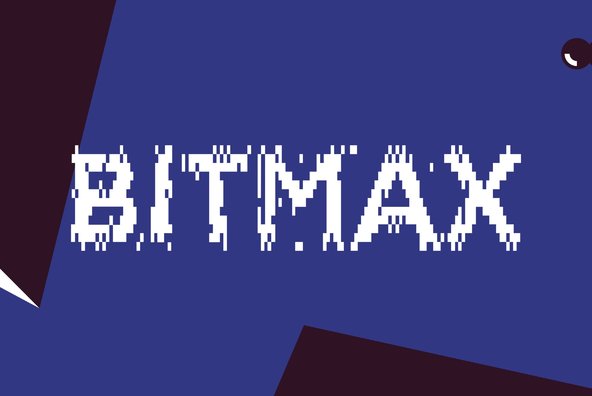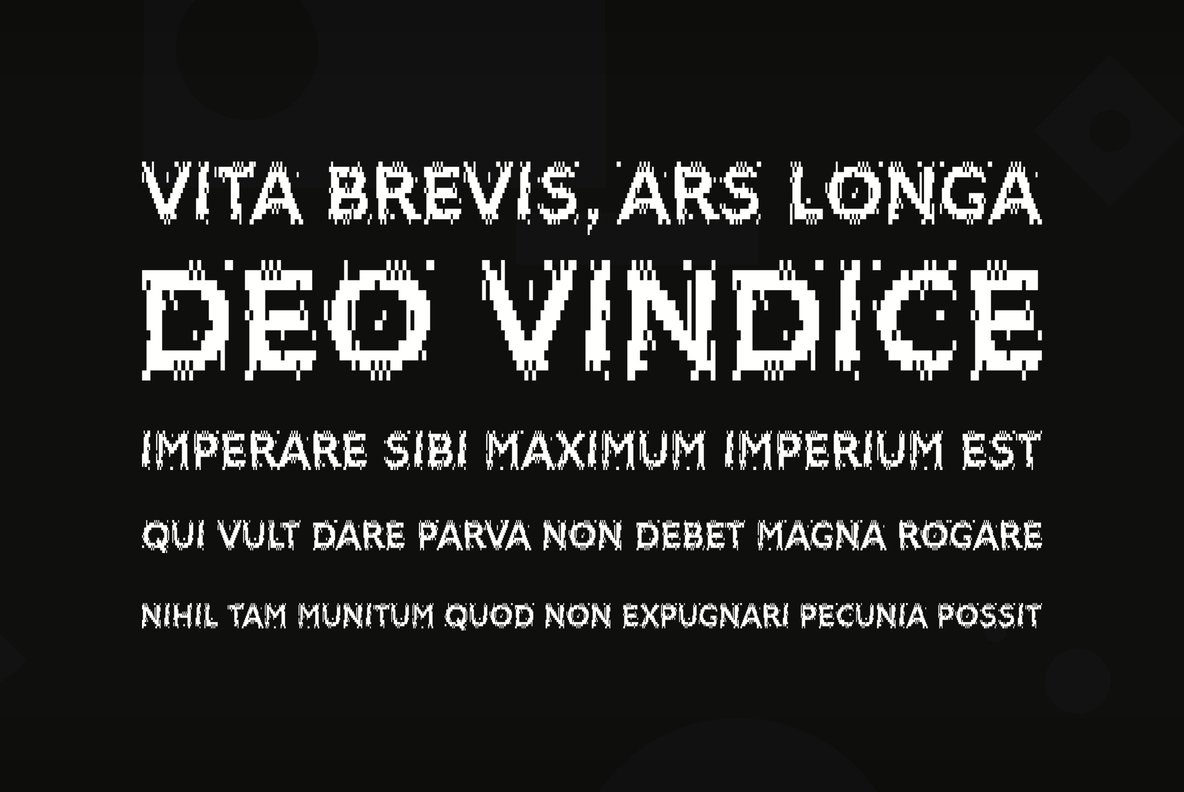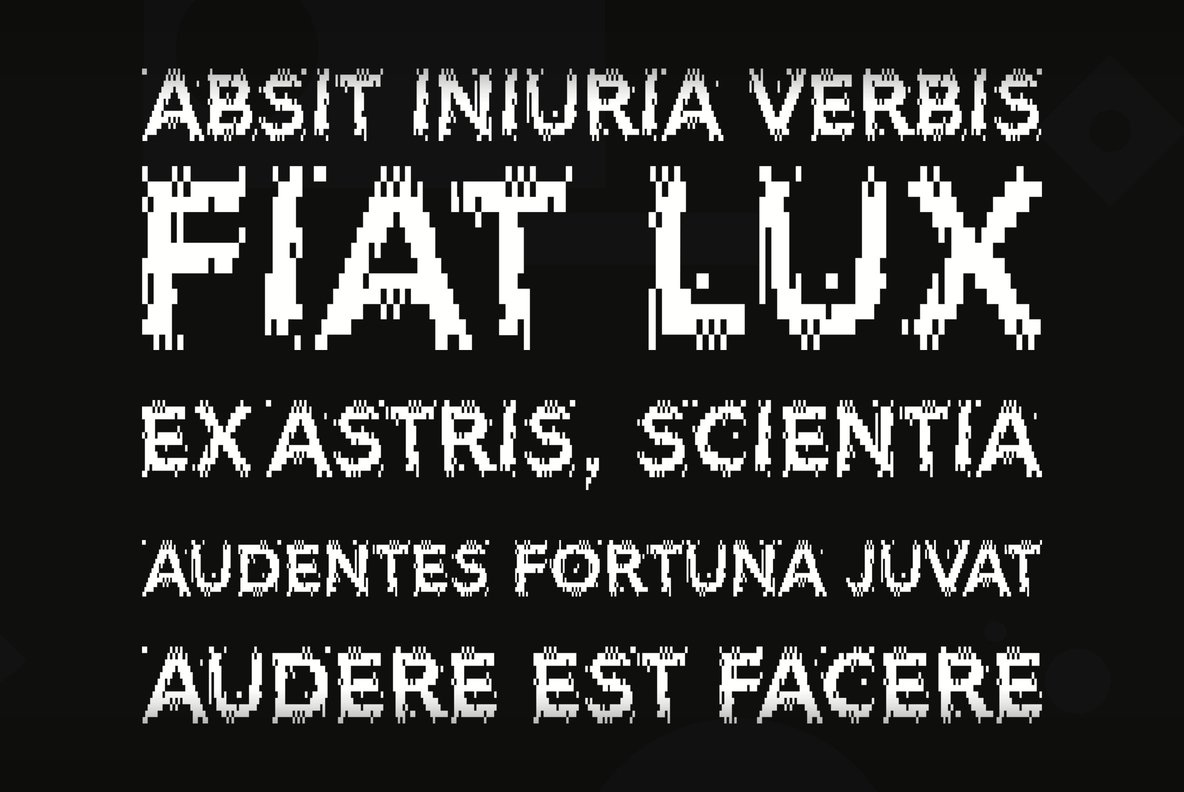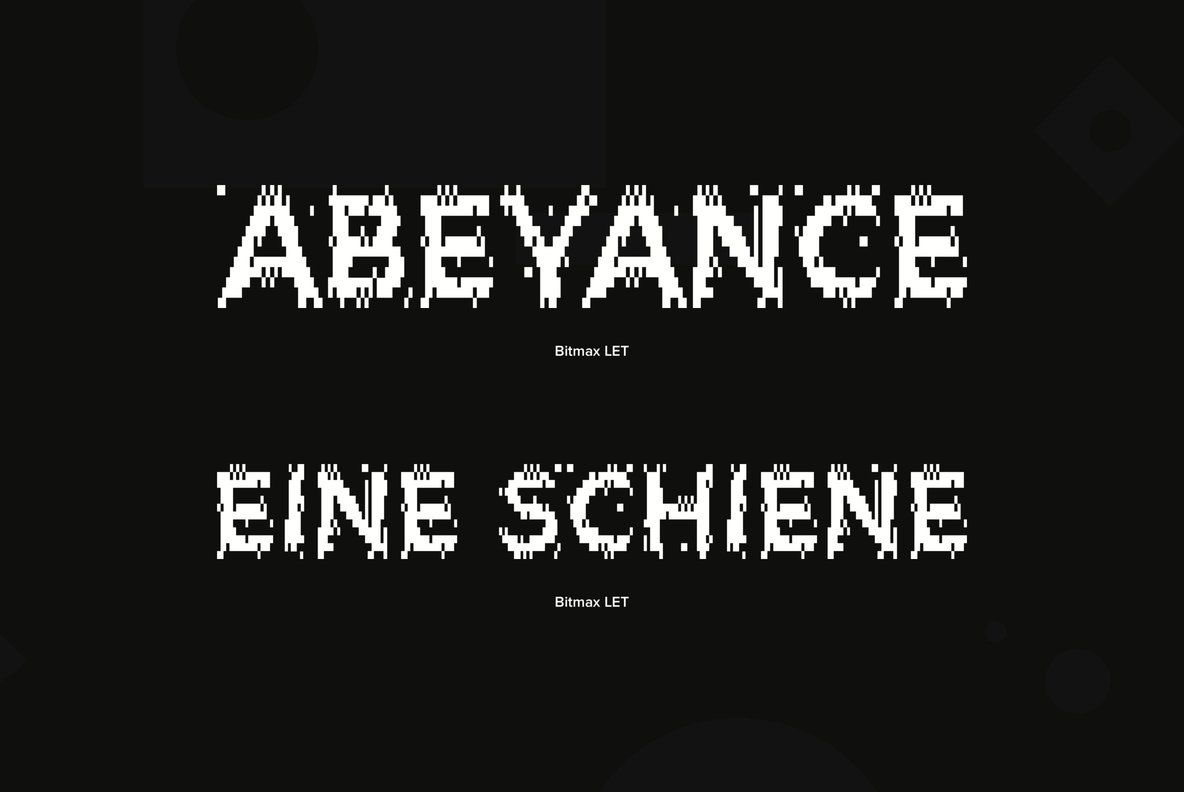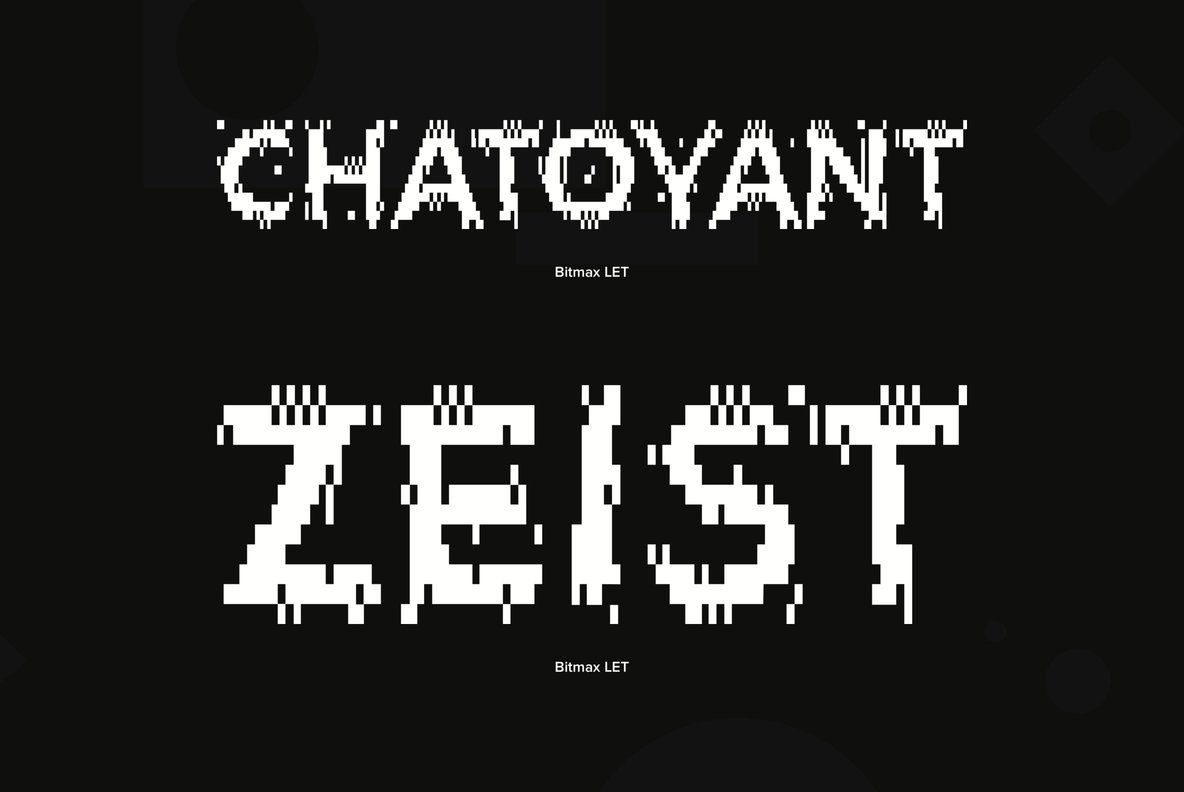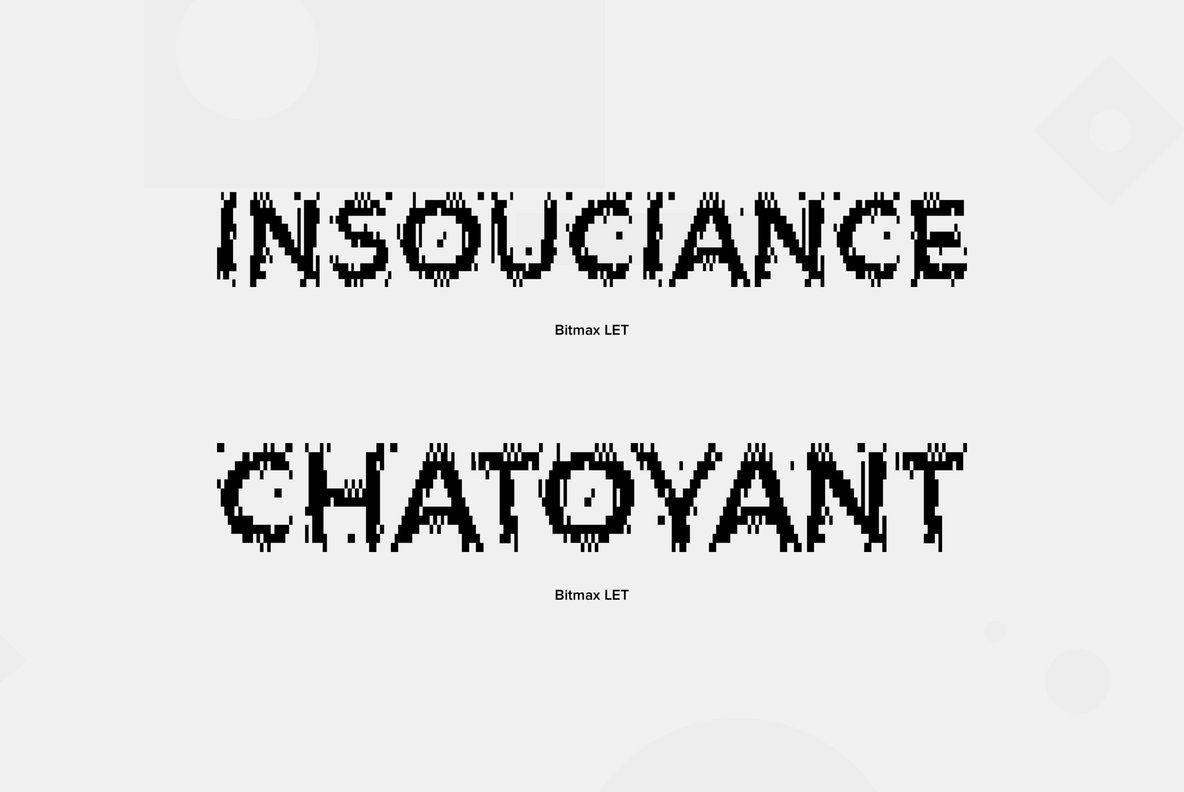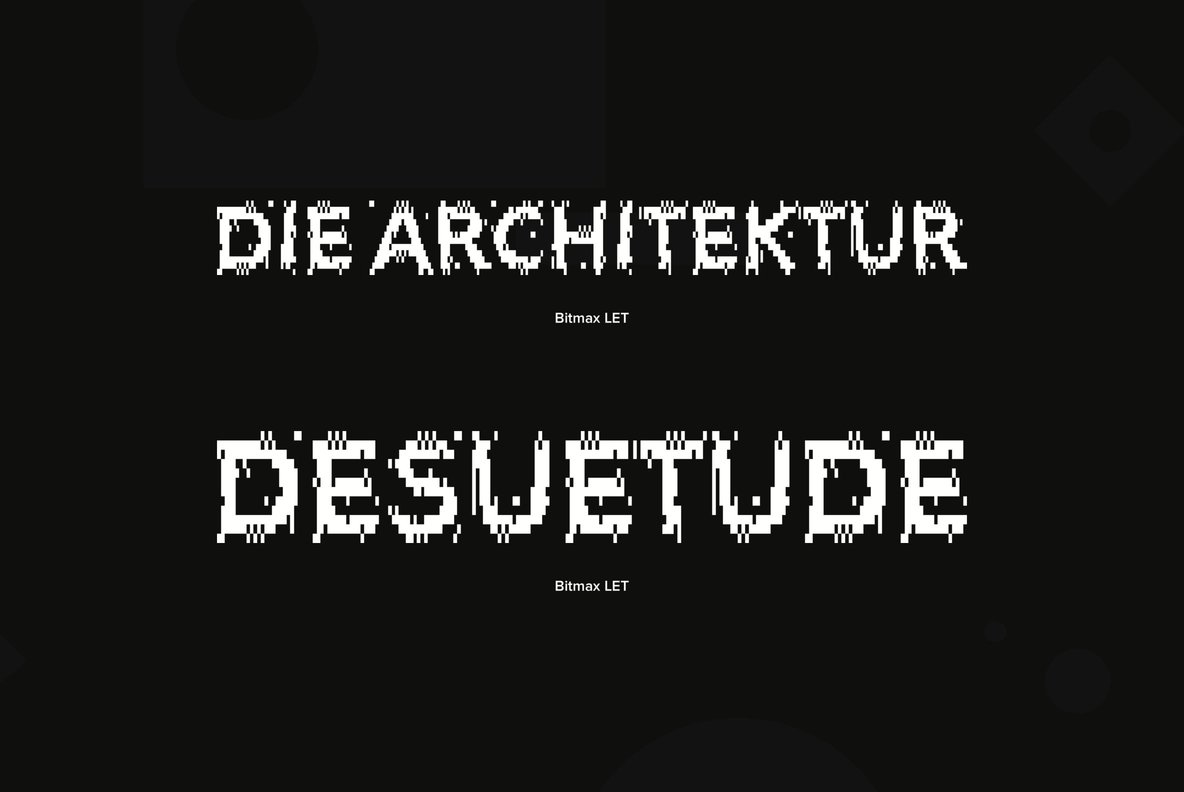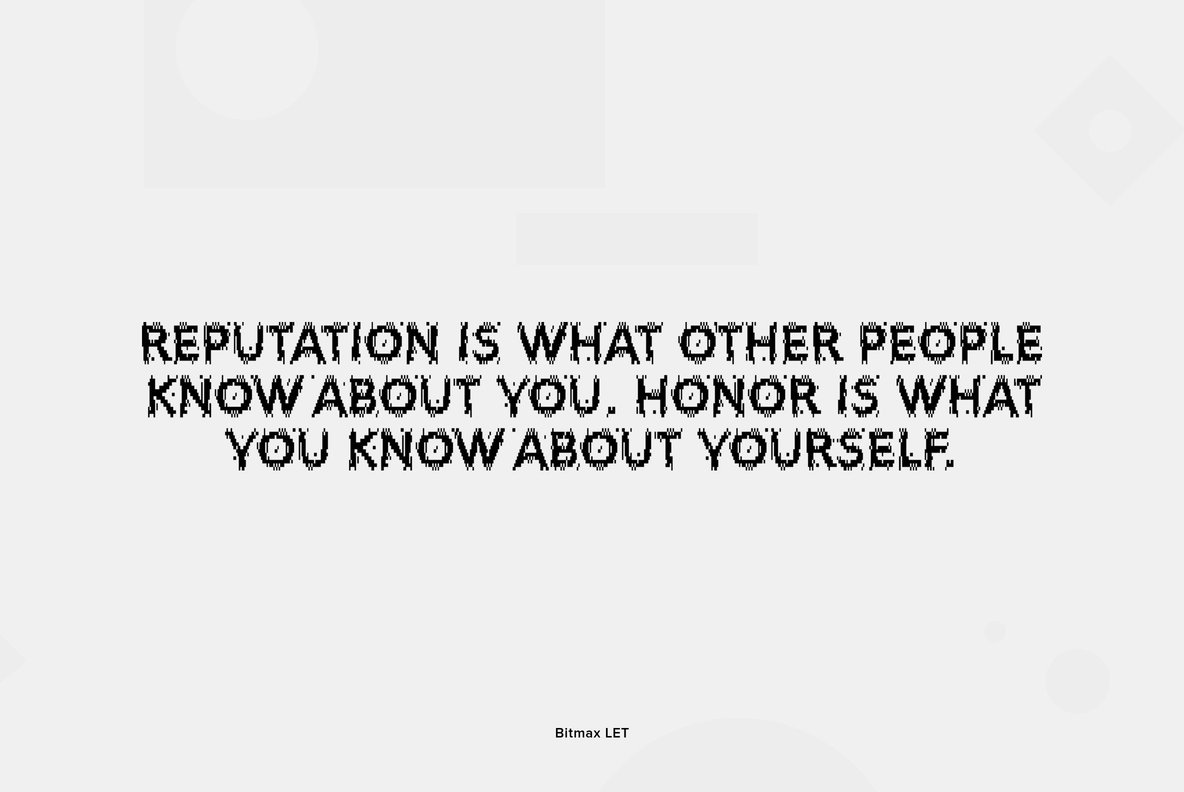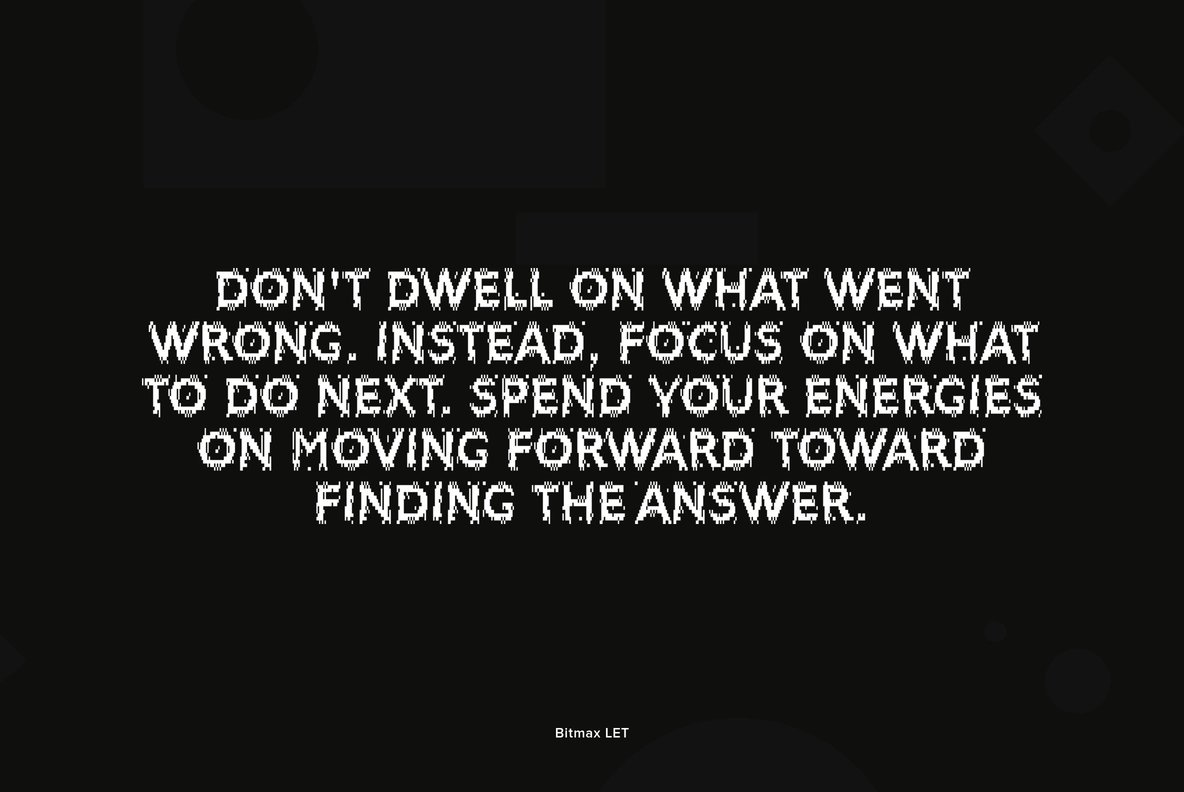
Foundry: Letraset
British designer Alan Birch was inspired by the way type looks on FAX transmissions when he created Bitmax. He began with Helvetica Medium and worked through a process of controlled distortions to create this commanding, high-tech style. Bitmax looks best when used in large display sizes for a limited number of words.